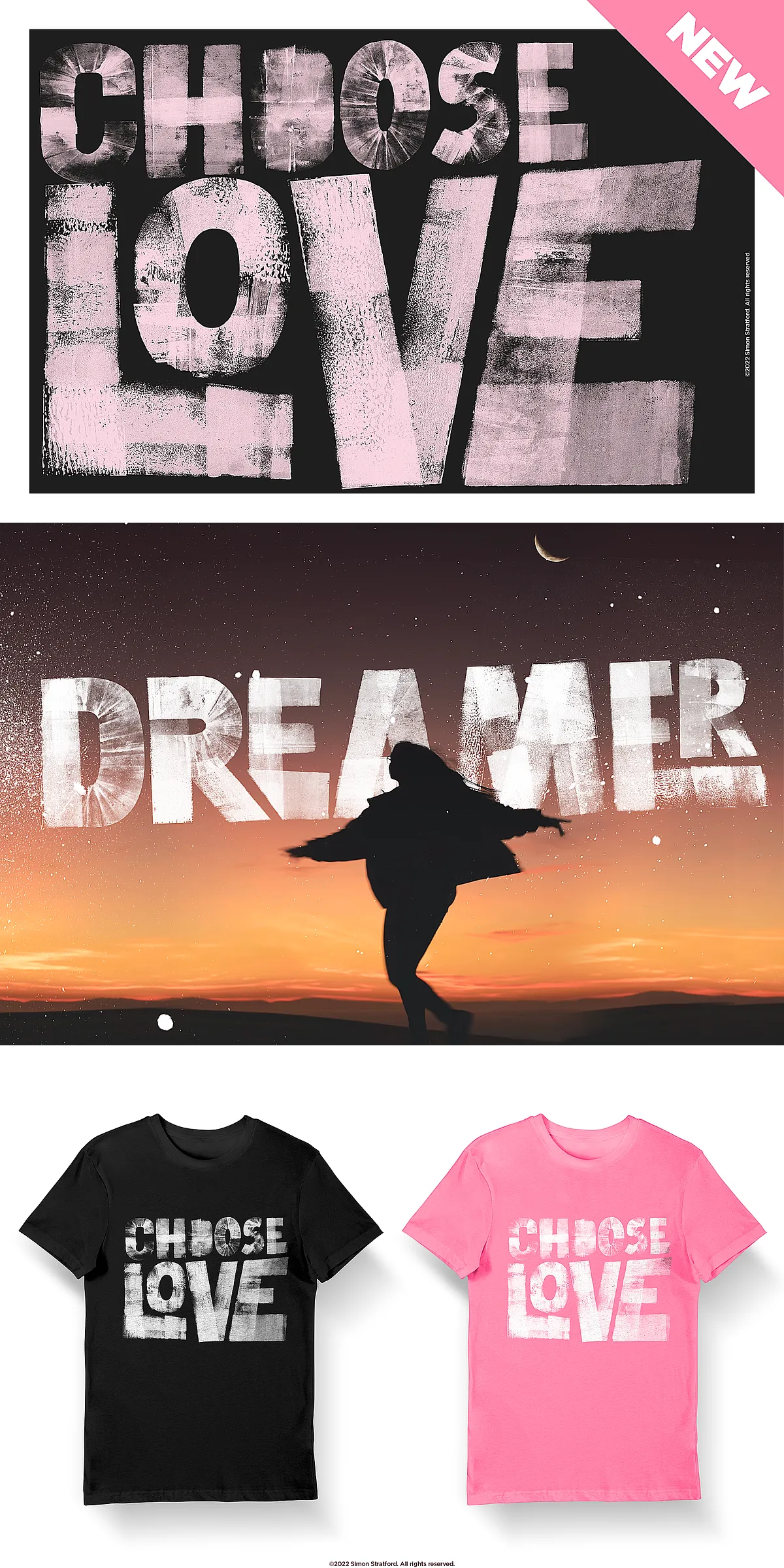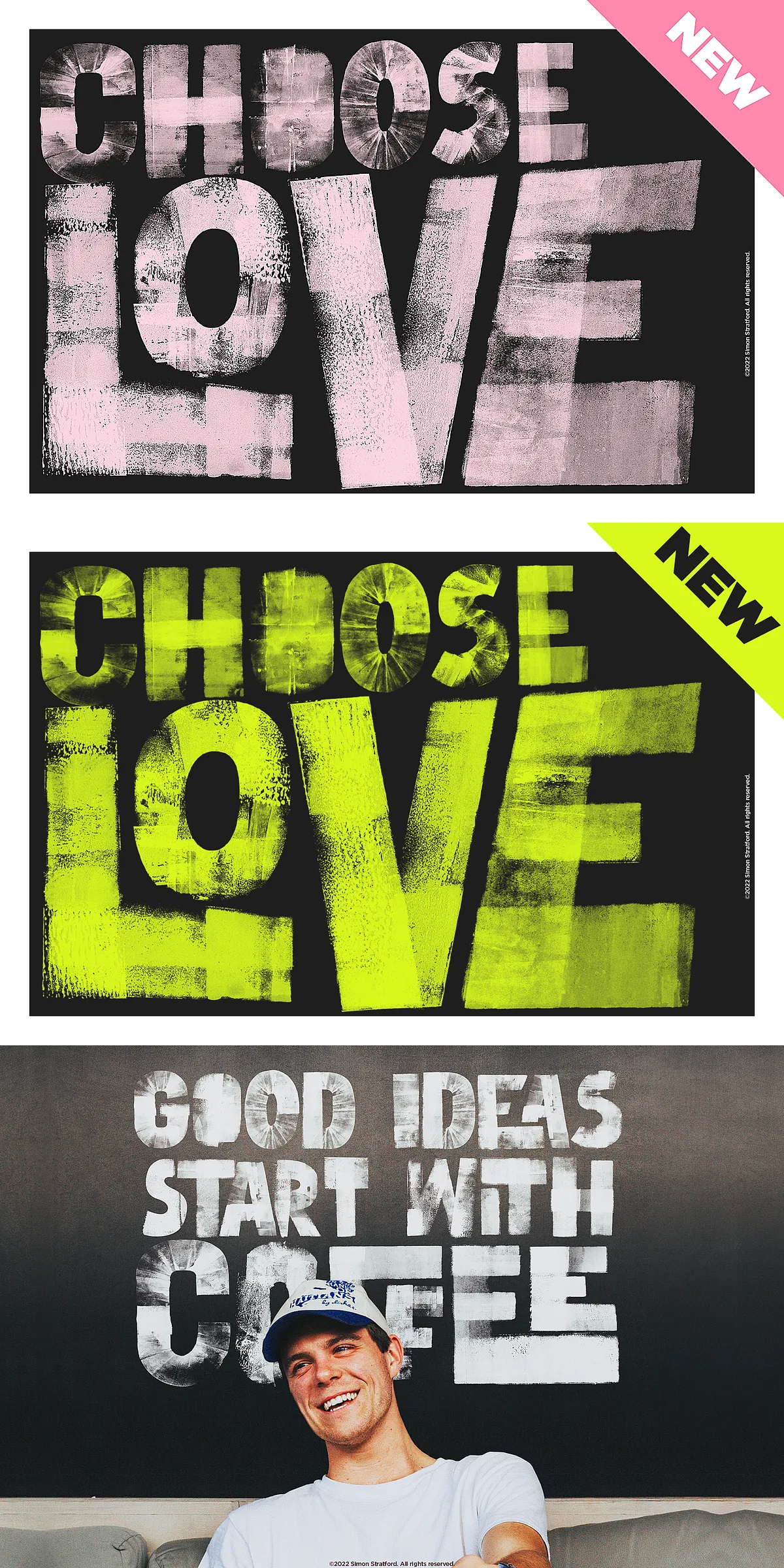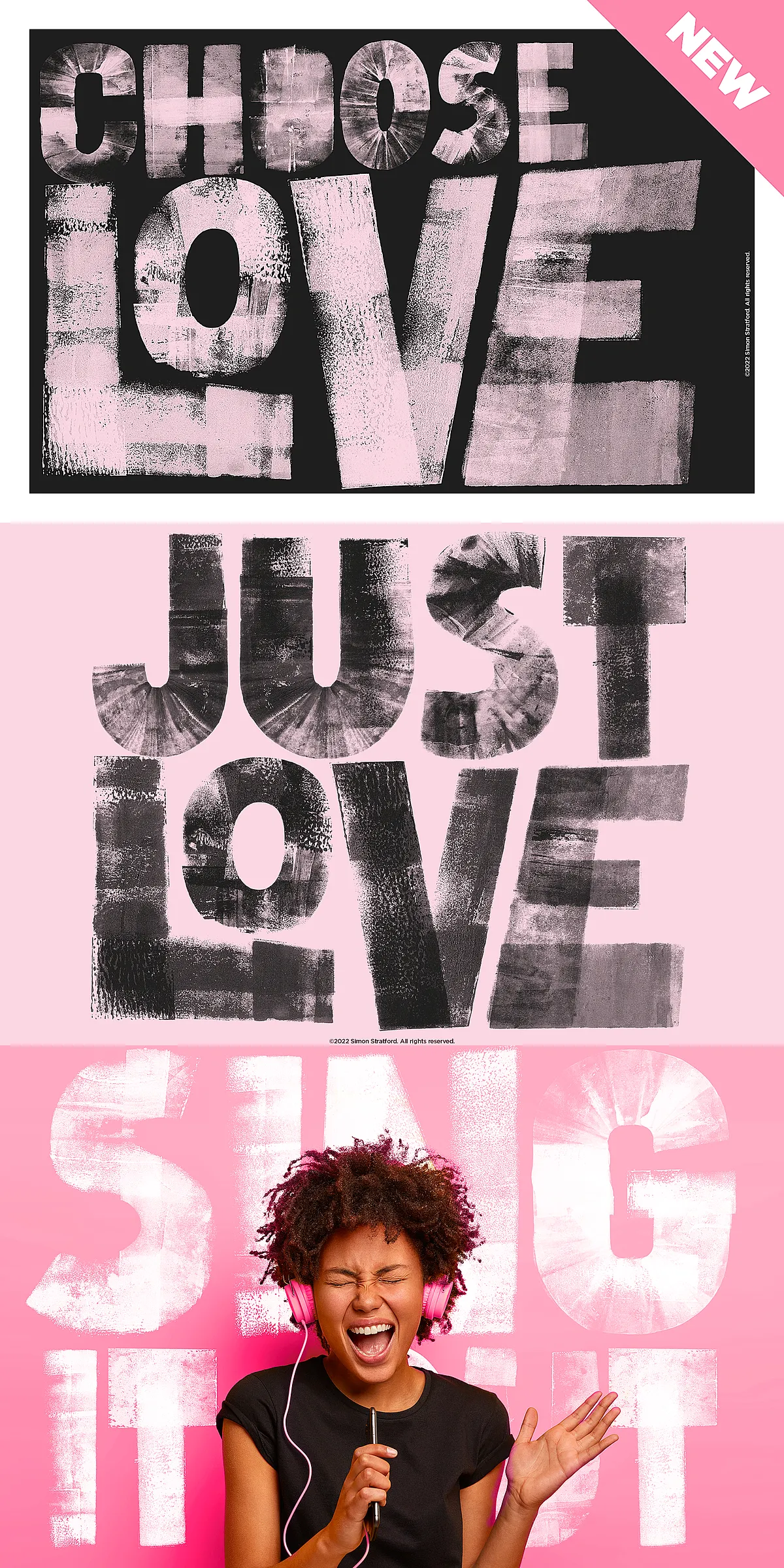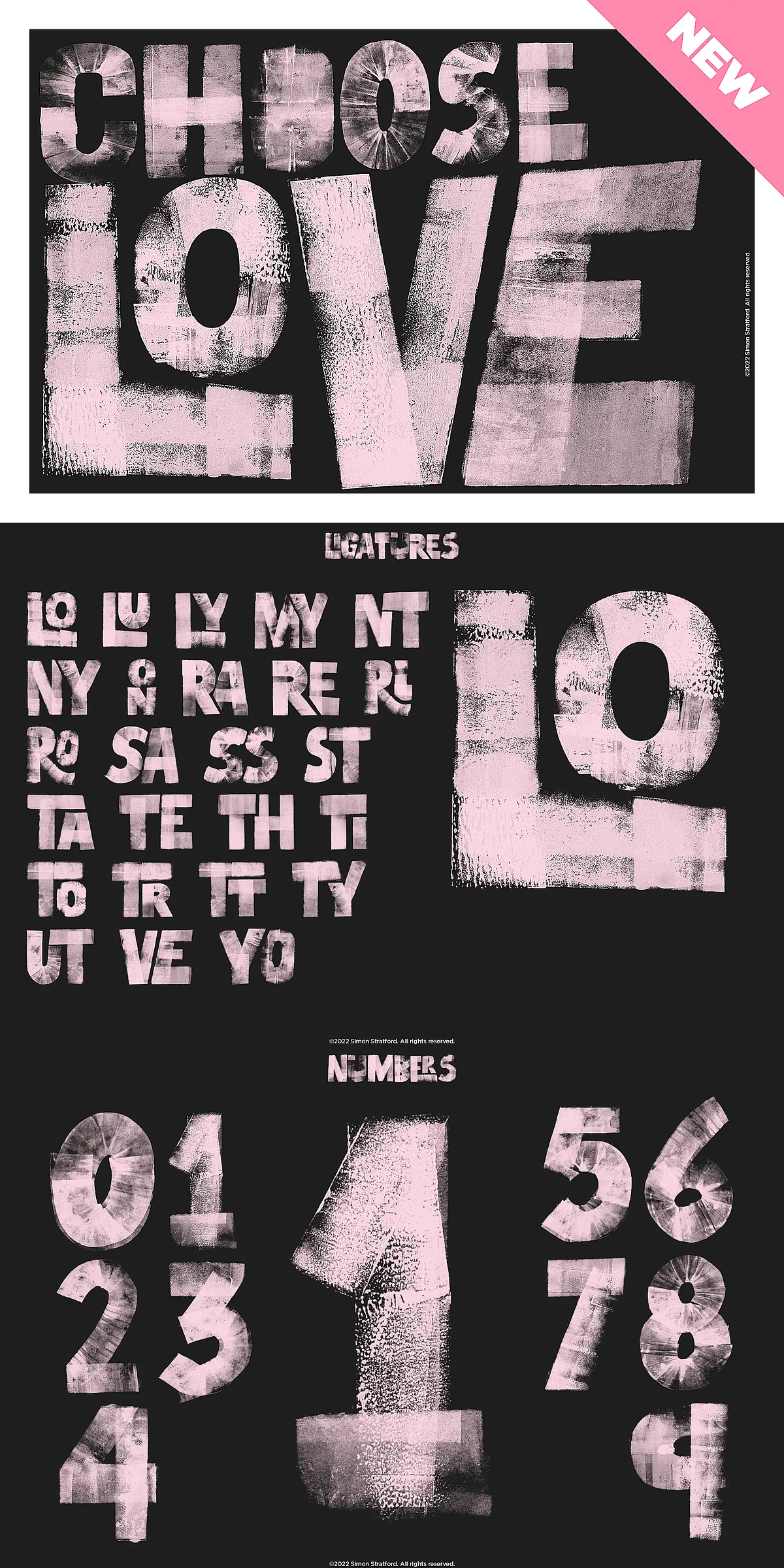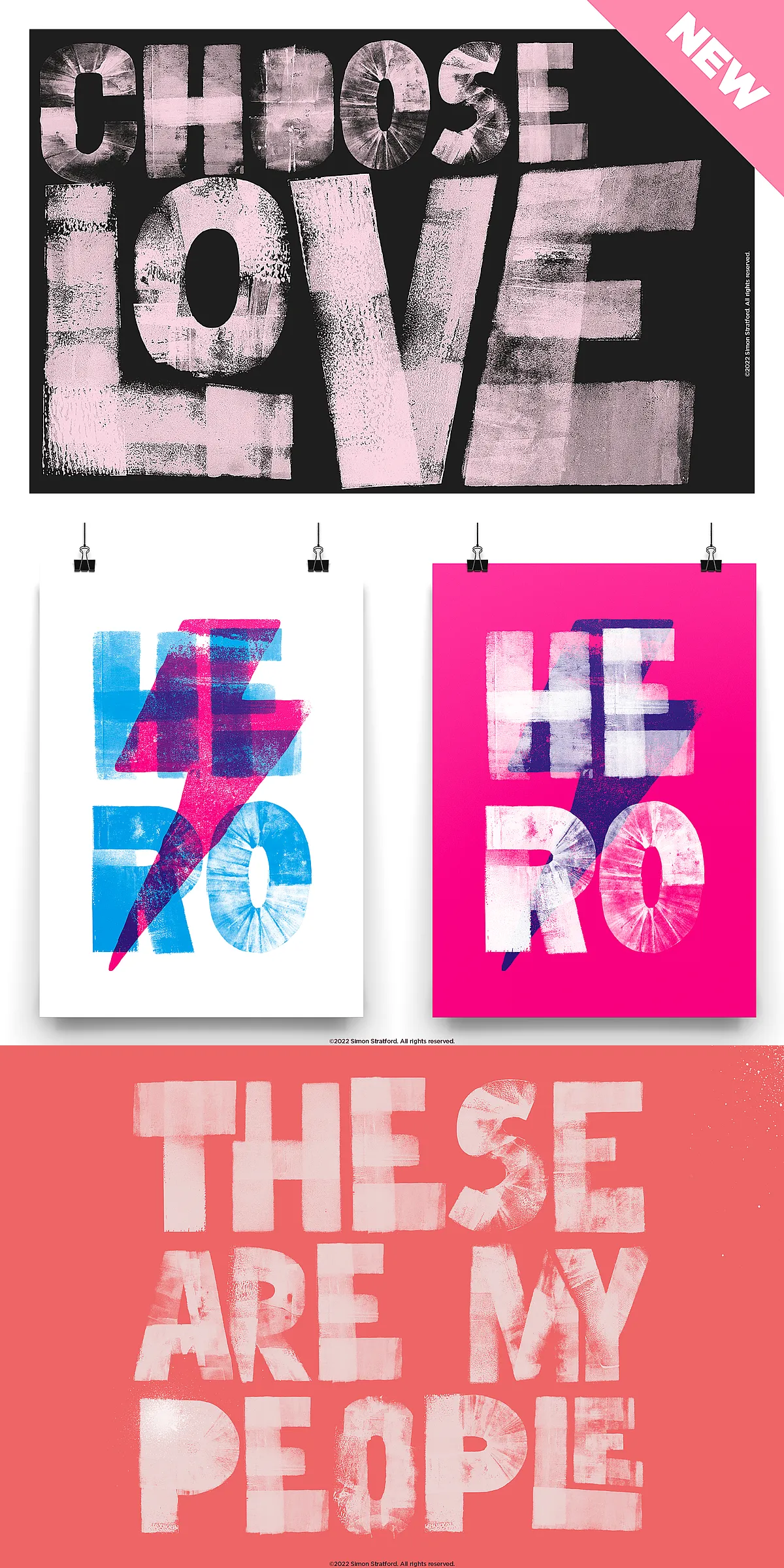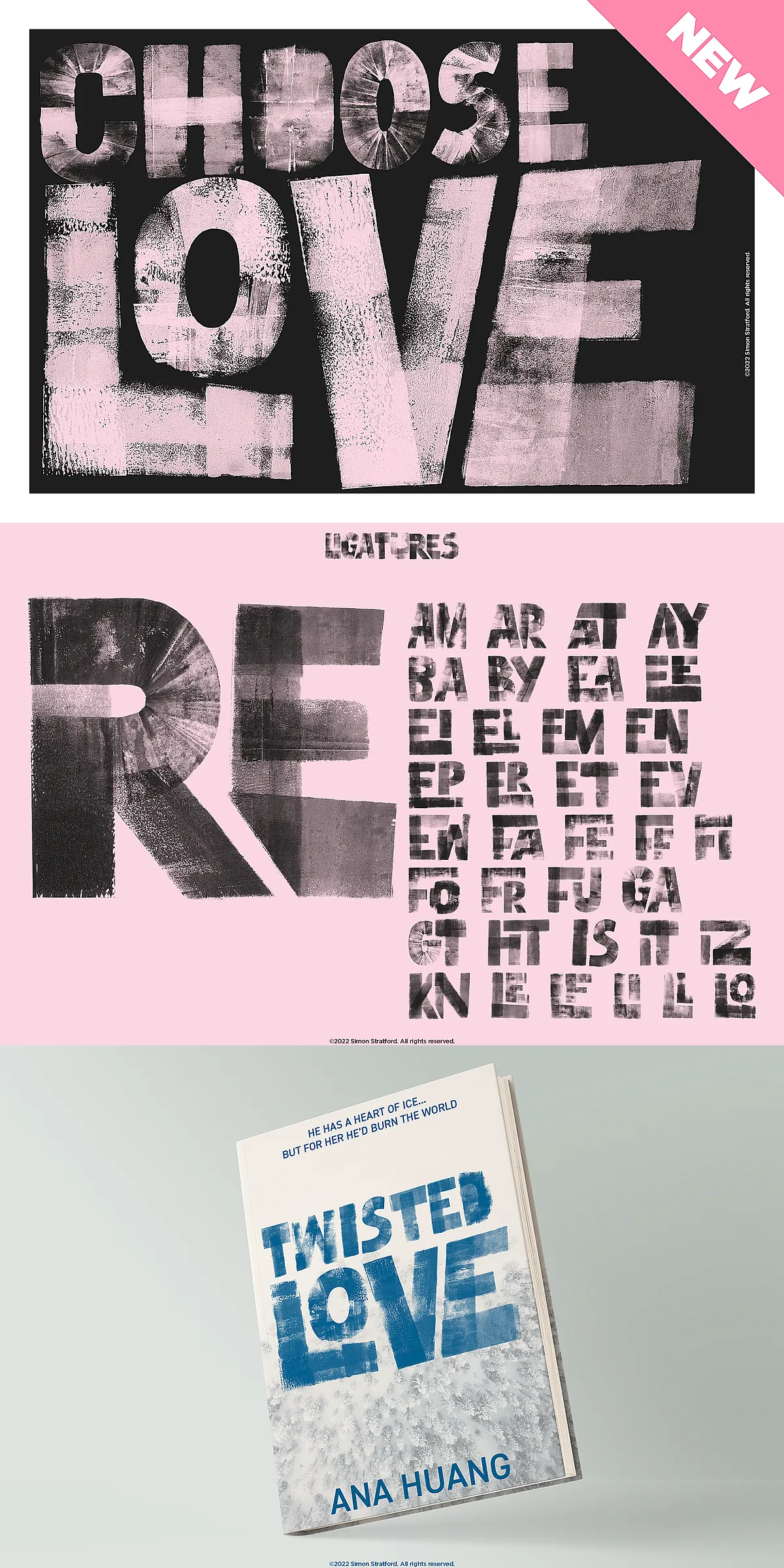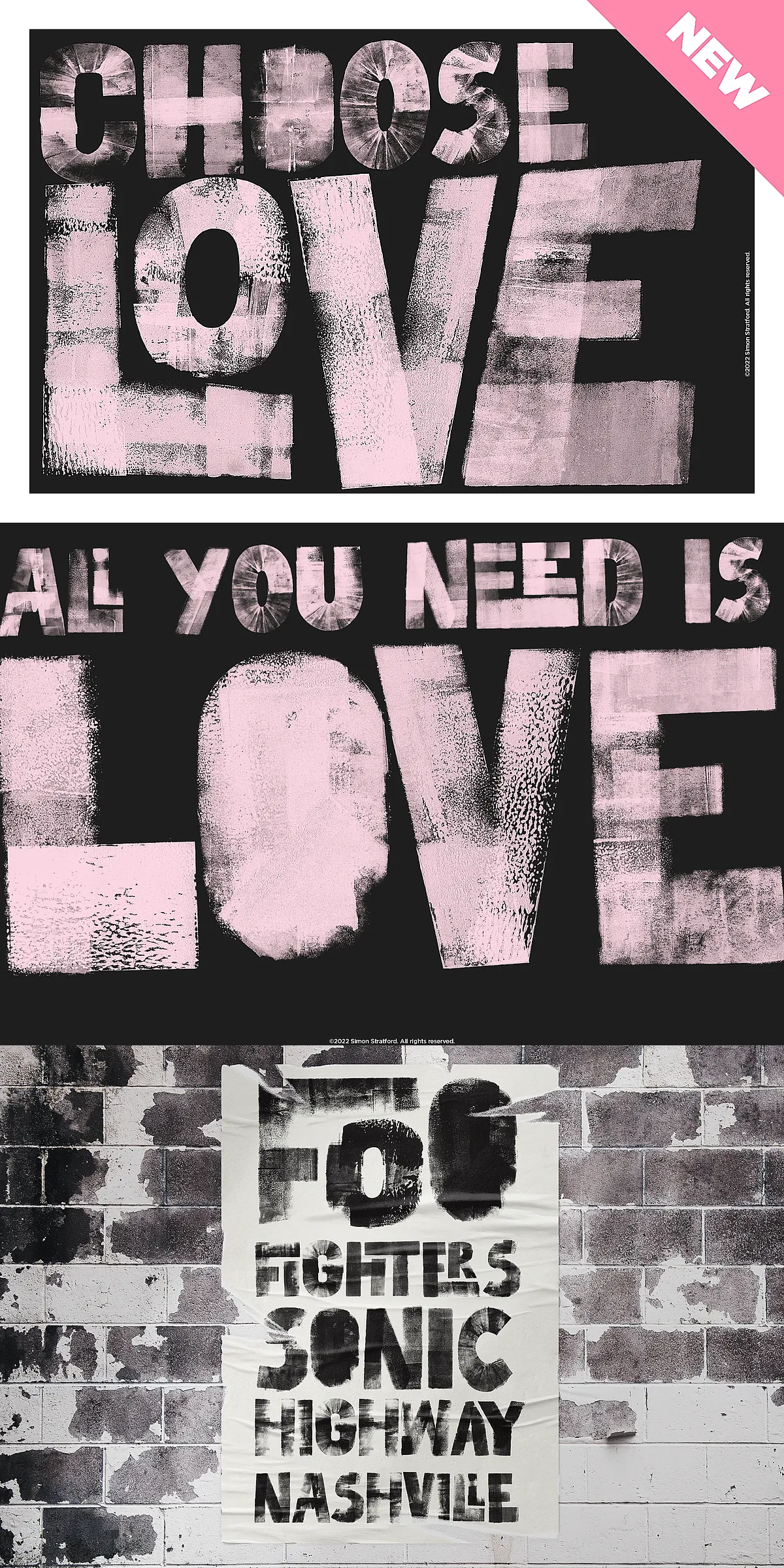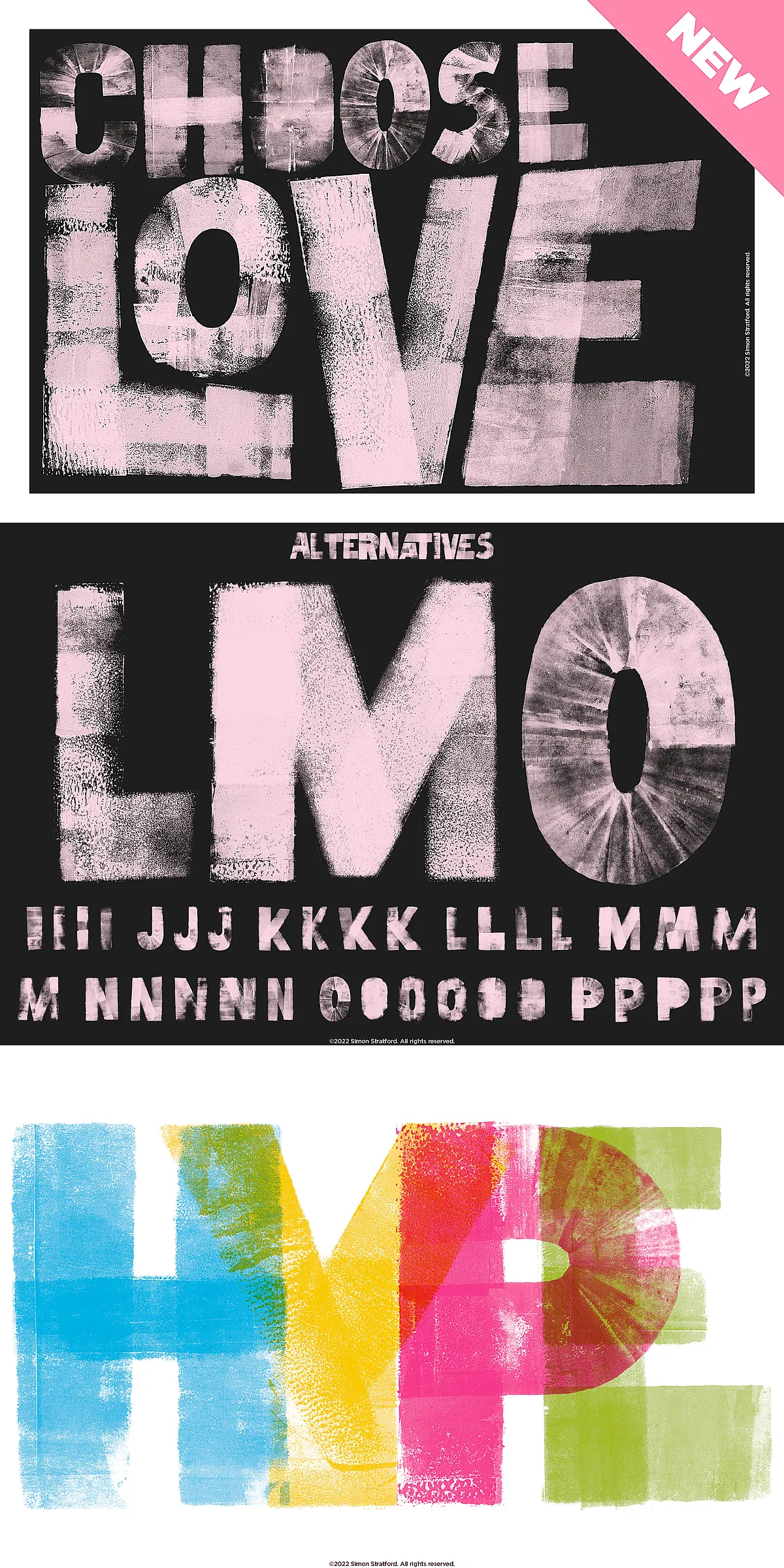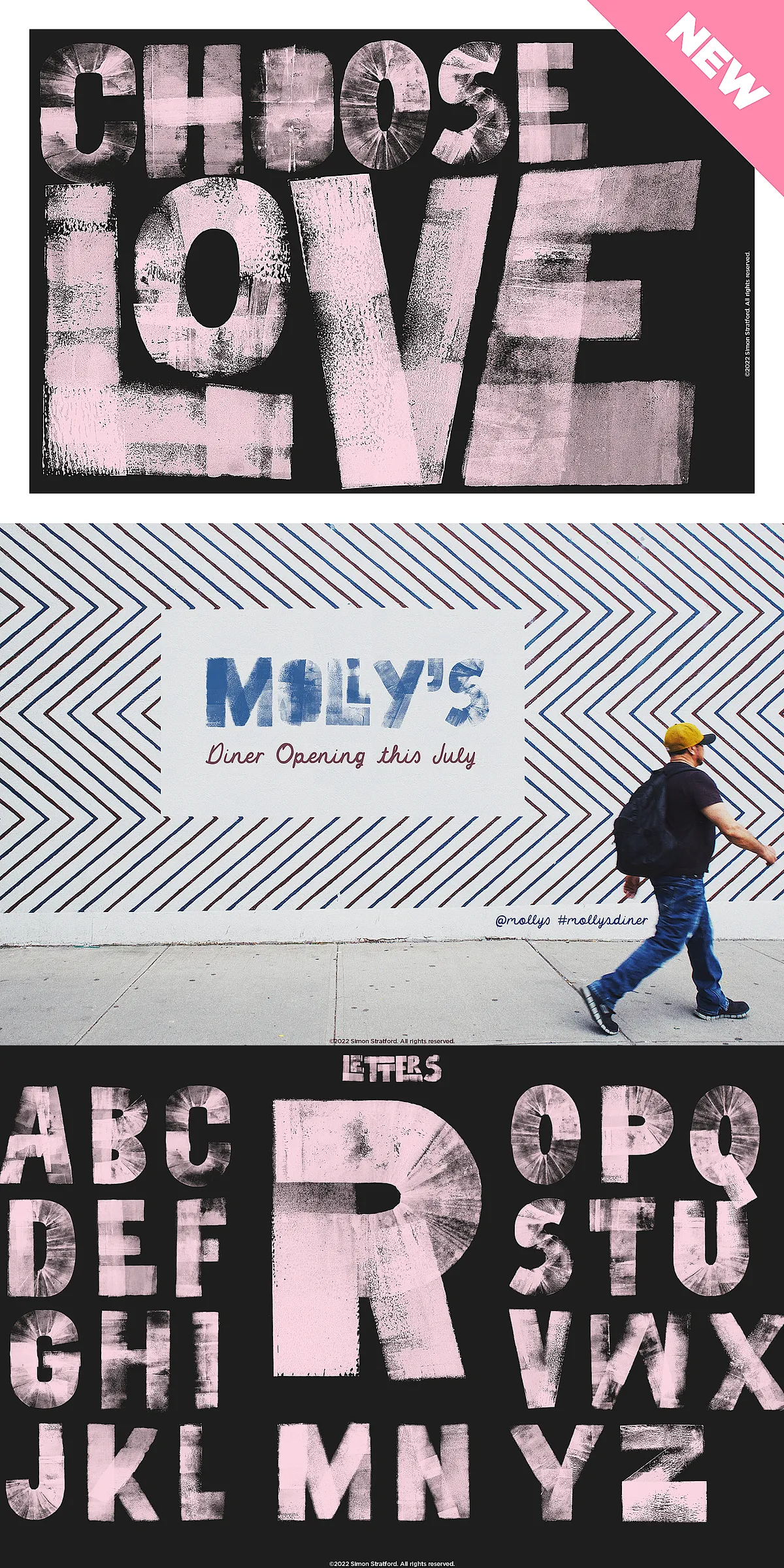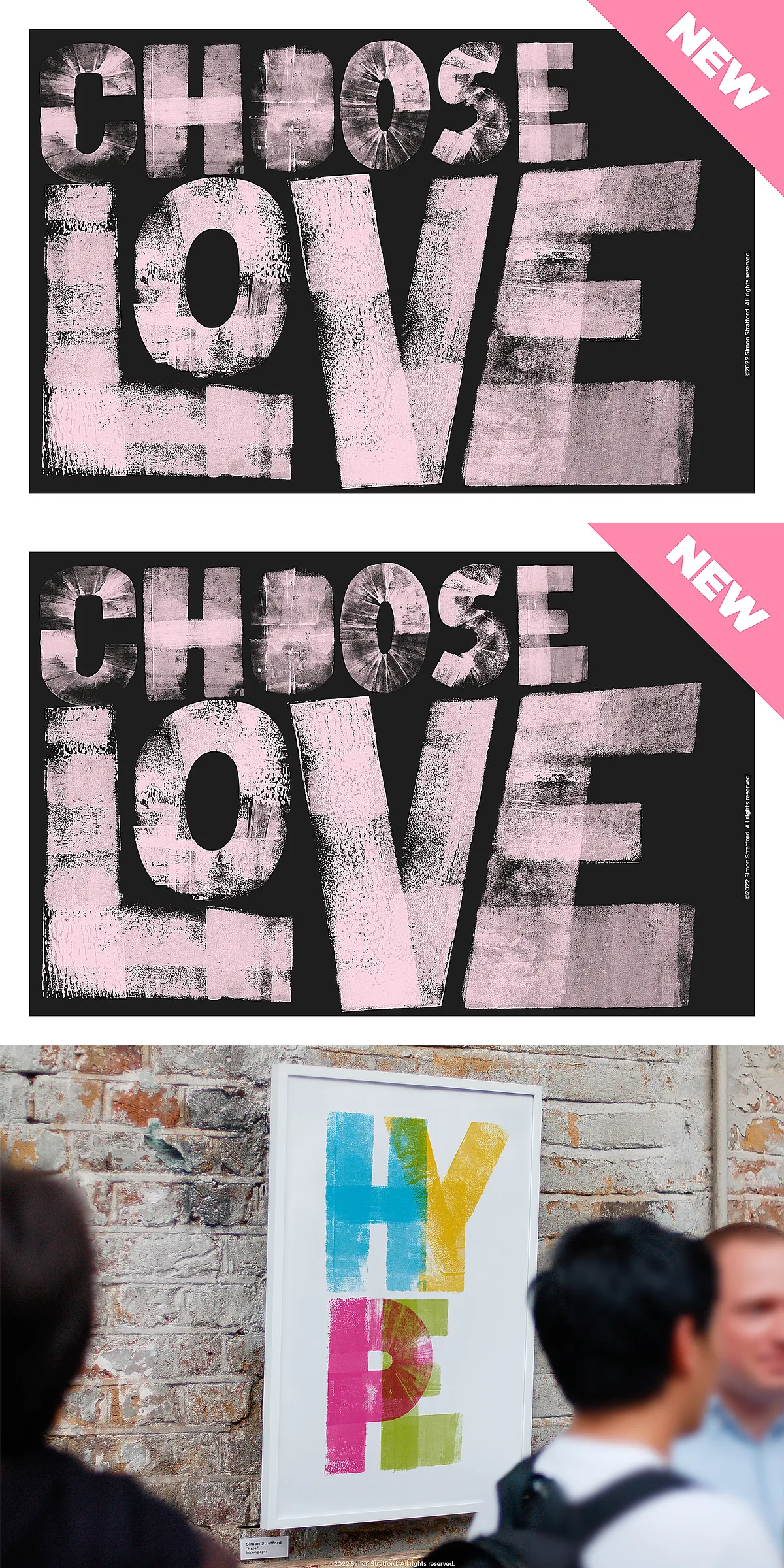
Introducing Choose Love — a defiantly human, boldly imperfect typeface designed by Simon Stratford with heart, soul, and ink-stained hands. Unlike sterile digital fonts, Choose Love was born from a real-world process: meticulously cut from cardboard, rolled with an ink brayer, and pressed onto paper. The result? A display font that breathes authenticity, texture, and raw artistic energy.
Every letter is a document of craftsmanship. You’ll find smudges, uneven pressure lines, ink blots, and slight warping — not as flaws, but as features. This is the magic of analog design, preserved digitally. It’s not clean. It’s not perfect. It’s real. And that’s exactly why it stands out in a sea of digital uniformity.
The Three Versions: Creative Flexibility at Your Fingertips
- Standard Version: The core font with classic letterforms. Ideal for quick projects, clean yet expressive layouts, and seamless integration into any design workflow.
- SVG Version: Perfect for web and interactive applications. Scalable, lightweight, and retina-ready, the SVG format ensures crisp rendering across devices while preserving the character of the original print.
- SVG Ligatures Version: The ultimate tool for typographic storytellers. Contains pre-built, hand-crafted ligatures that bring a dynamic, artisanal flow to text — essential for creating magazine spreads, product labels, and editorial designs that demand attention.
Unlock Infinite Design Possibilities with Alternative Glyphs
Choose Love isn’t just a font — it’s a design toolkit. Each letter from A to Z comes with at least three unique alternatives, giving you control over rhythm, variation, and visual texture.
How to Use Them Strategically
- Break Repetition: Avoid monotonous letter repetition in names, slogans, or headlines. Swap out repeated letters (e.g., two Ls in “Love”) with different variants for a natural, hand-done look.
- Create Visual Rhythm: Use alternative glyphs to guide the eye through your text, making it feel alive and intentionally composed — not machine-generated.
- Build Authentic Type Lockups: Combine varied glyphs manually or via OpenType features to simulate the organic imperfections of hand-printed posters, vintage labels, or one-off art prints.
Master the Art of Ligatures for Professional Impact
Choose Love includes a dedicated ligature set — available in a separate OpenType font file. These aren’t just decorative touches; they’re structural enhancements that elevate your work.
Key Ligature Features
- Handcrafted Combinations: Includes 50+ custom ligatures for common two-letter pairs like Ch, Th, Sh, St, Lo, and Cr, designed to mimic real letterpress printing.
- Consistency Meets Surprise: While automatic ligature replacement can be enabled, manual selection allows you to craft deliberate typographic moments — where form follows feeling.
Perfect for Brands That Value Soul Over Simplicity
Choose Love isn’t for minimalist aesthetics. It belongs in bold, storytelling-led design where emotion, heritage, and authenticity matter.
Best Use Cases
- Branding & Identity: Launch a new brand with warmth and character — perfect for cafes, artisanal goods, local boutiques, and creative studios.
- Merchandise & Packaging: Use on tote bags, box labels, candle jars, and gift wrap to add tactile, handcrafted charm.
- Posters & Invitations: Ideal for music events, art exhibitions, wedding announcements, and festival flyers where personal touch is paramount.
- Editorial & Publishing: Break the monotony in magazines, zines, and book covers with typographic layers that feel handwritten.
- Web & Digital Art: Use SVG versions for interactive websites, animations, and digital illustrations that demand handmade authenticity.
The Legacy of a Handmade Font: More Than Just Letters
Choose Love isn’t about precision. It’s about presence. It’s about creating a moment where the viewer leans in, senses the process, and feels a connection. That’s the power of typographic imperfection — it invites you to look closer, touch the screen, and feel the story.